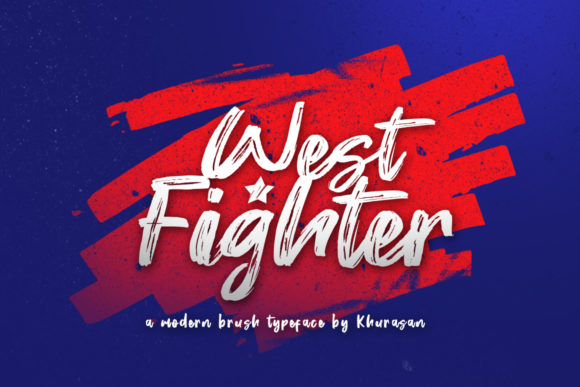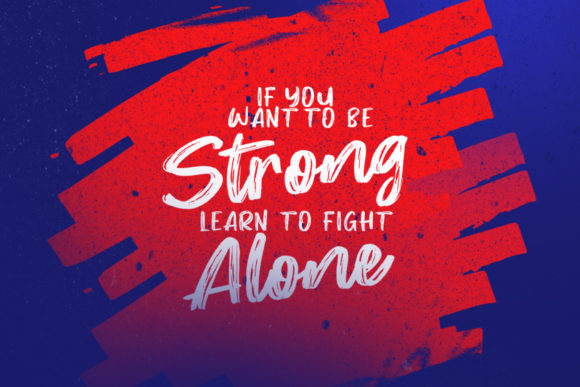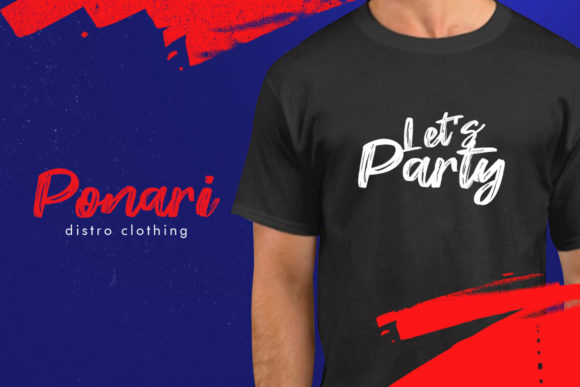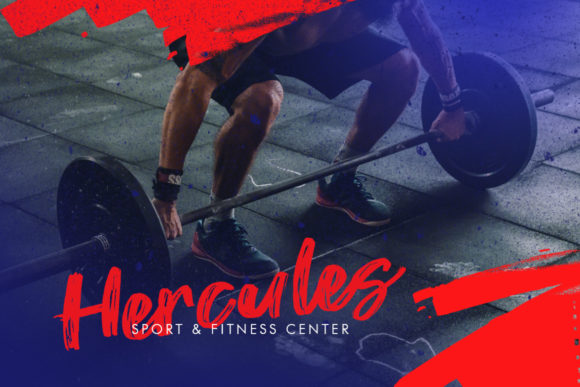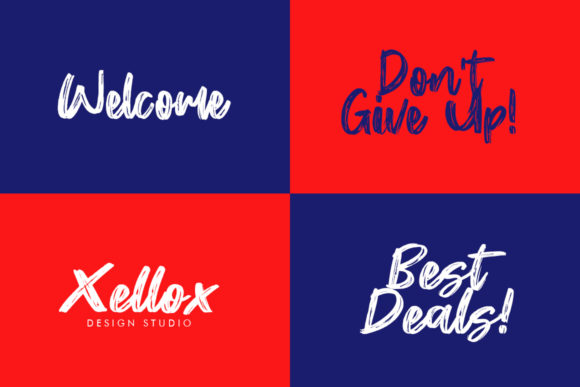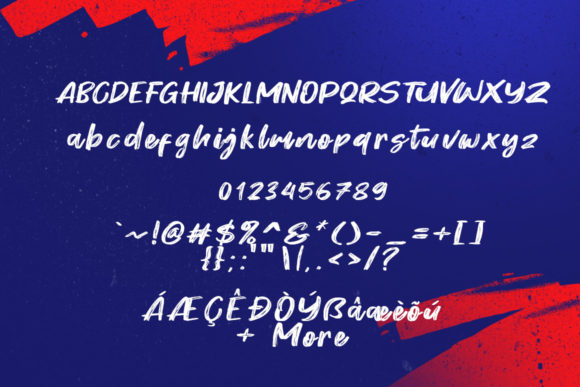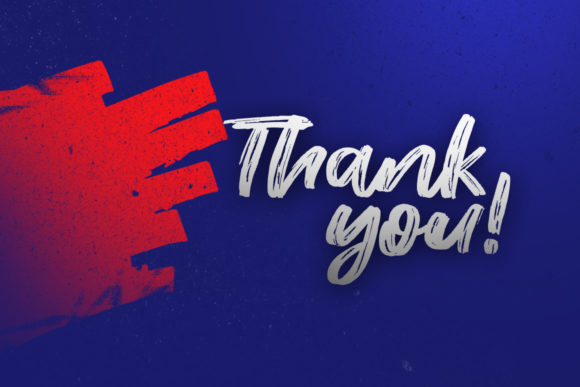
West Fighter Font
About West Fighter Font
West Fighter is a fresh handwritten brush font with an elegant and vintage feel. It will add a retro touch to any design project.